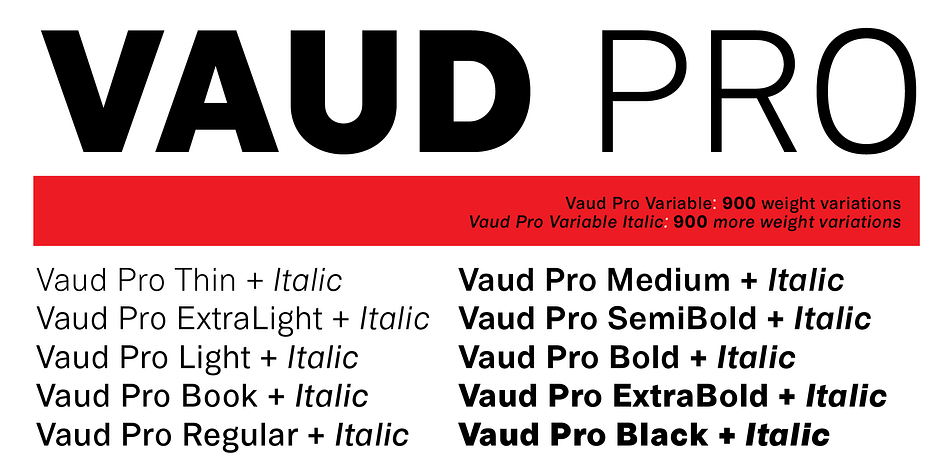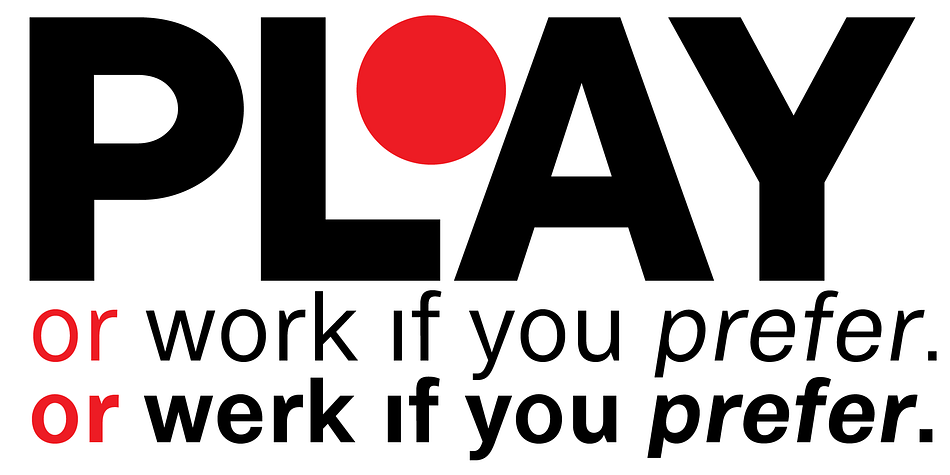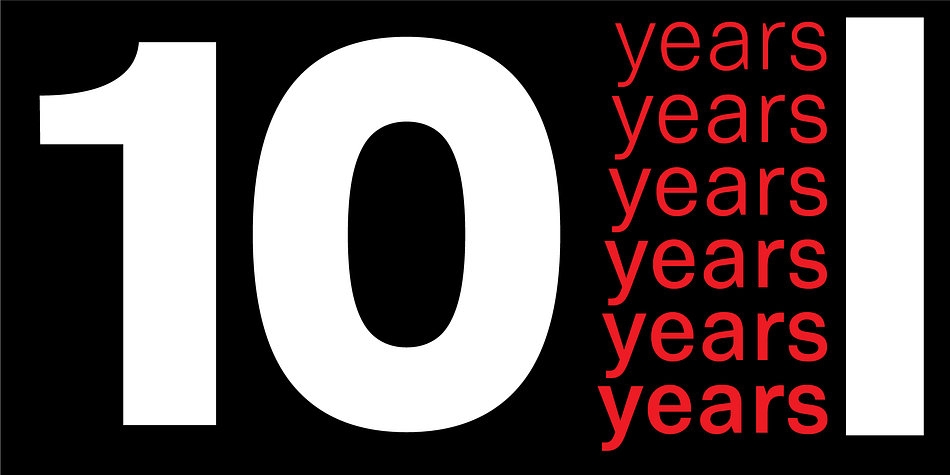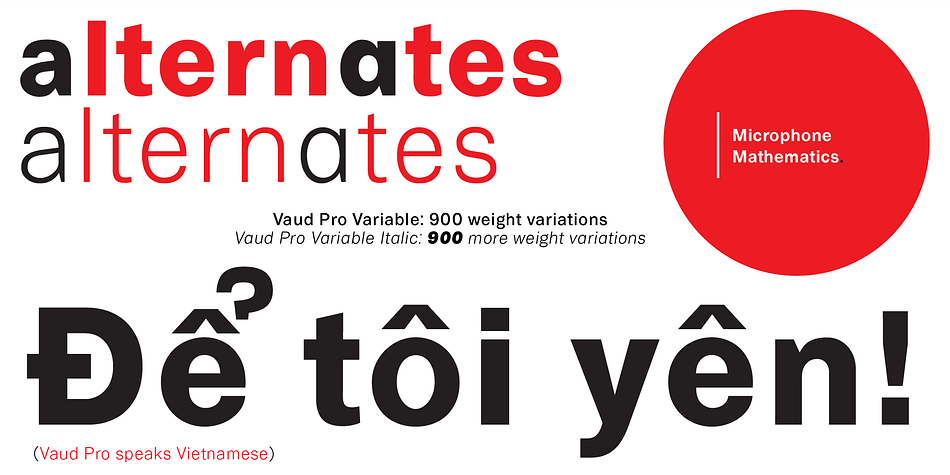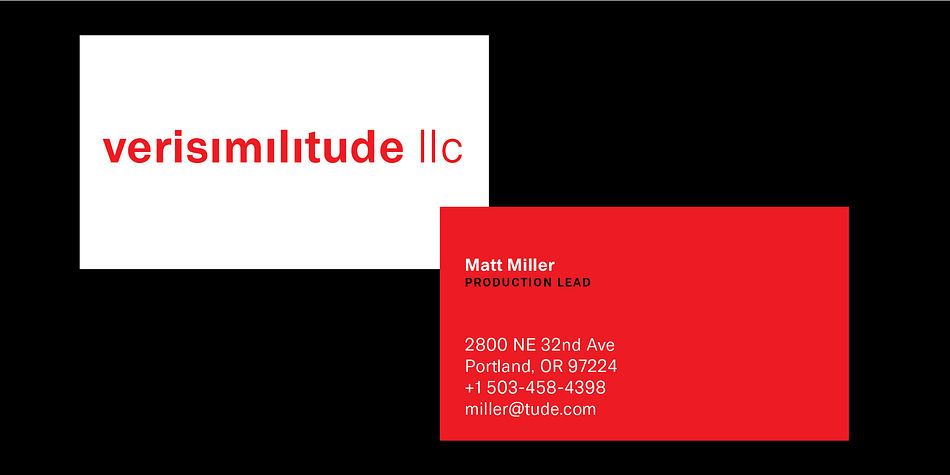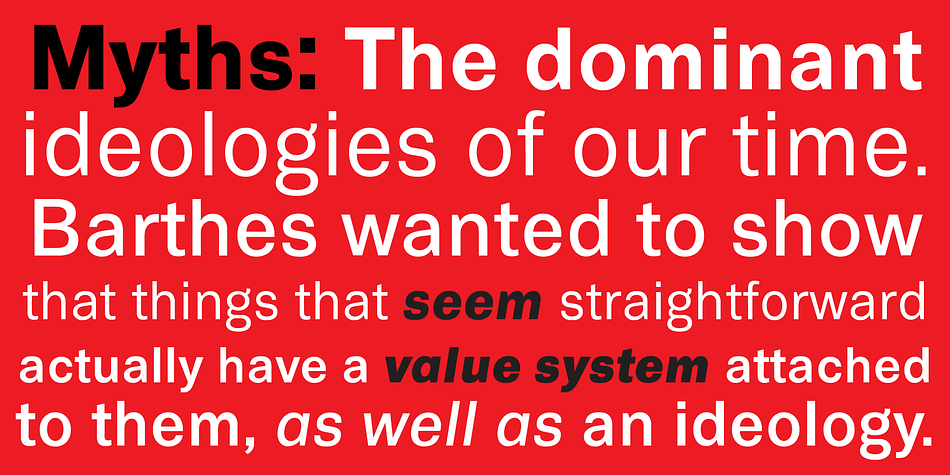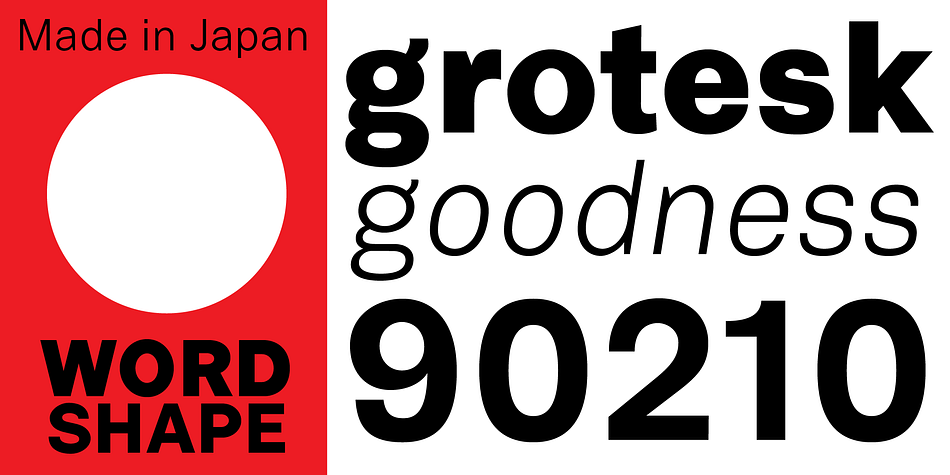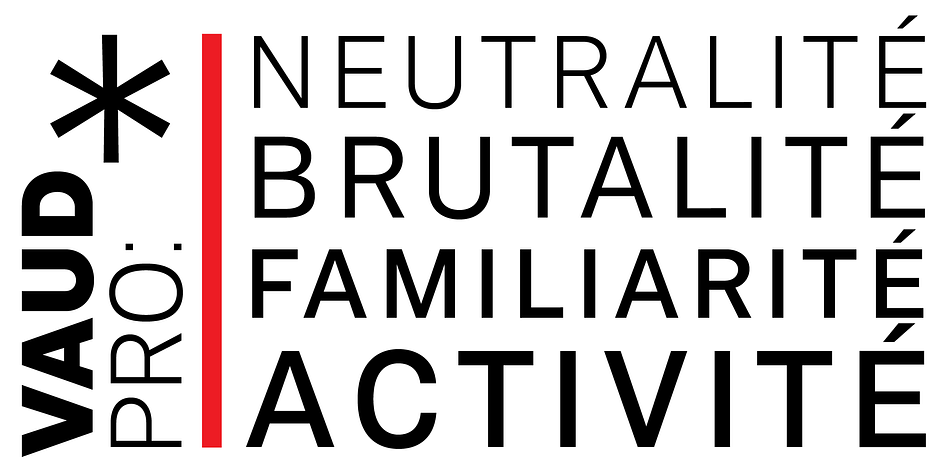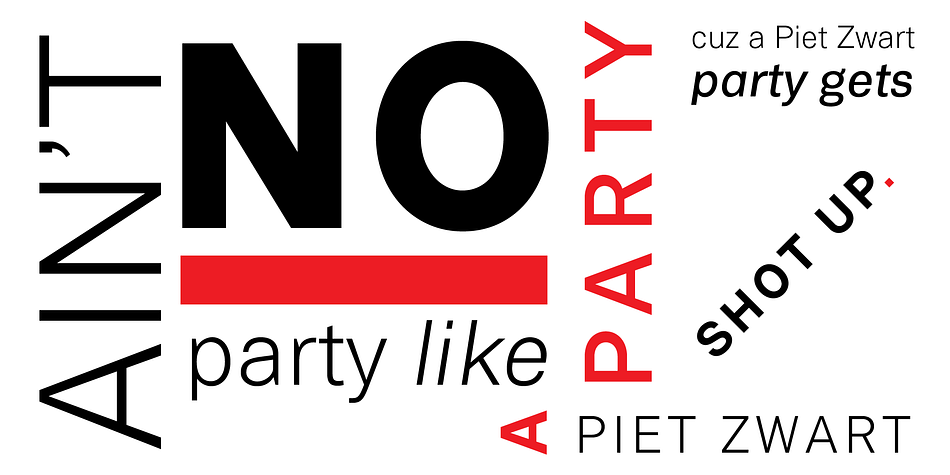
Vaud Pro
Designed by Ian Lynam, Vaud Pro is a sans serif font family. This typeface has twenty-two styles and was published by Wordshape.
Vaud Pro is our extensive sans serif font family redrawn from scratch and released on the decade anniversary of the launch of our out-of-print type family Vaud. The Vaud Pro type family consists of 10 weights each in Roman and italic, alongside variable fonts which combine the entire family and span over 1,800 weight increments(!).
Vaud Pro fully supports Vietnamese. The Vaud Pro typeface family is inspired by typical British and German grotesk fonts, as well as the original Swiss sans typefaces.
Vaud Pro is highly legible in print and on screen. This grotesk typeface family works great as display font and text font, pairing nicely with elegant serif typefaces to offer semantic and semiotic stability and reliability. Vaud Pro includes expanded language support (look at that Vietnamese!), exact rendering on-screen and in print and precise spacing.
It’s important to remember that famous maxim: Nothing is neutral.